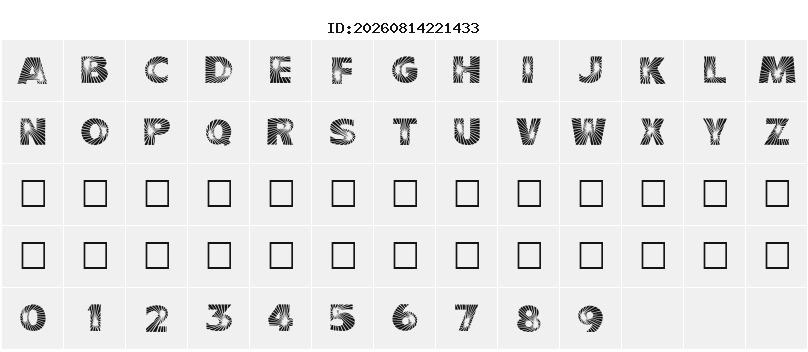
Starburst Preview
• Font Name: Starburst
• Full Font Name: Starburst Regular
About Starburst.ttf
Starburst.ttf is a modern, elegant sans-serif font designed for ultimate readability and visual harmony. Perfect for branding, headlines, web design, and print materials.